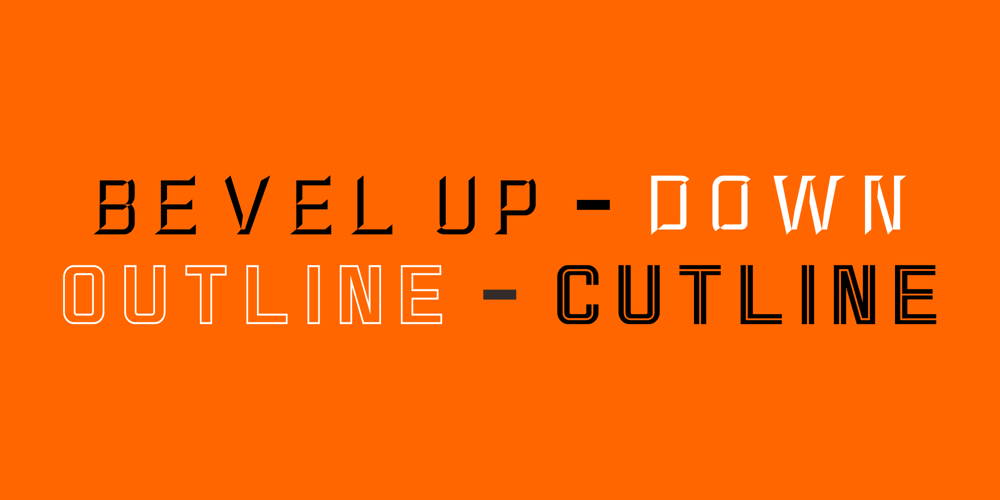
Factory Font Family was designed by Muhammad Jauhar Azmi and published by Brainware Graphic. Factory contains 9 styles and family package options. Factory – layered 3d font inspired by industry inc font by holdfast foundry. a vintage signage font for perfectly mirroring to sign painter in vintage era